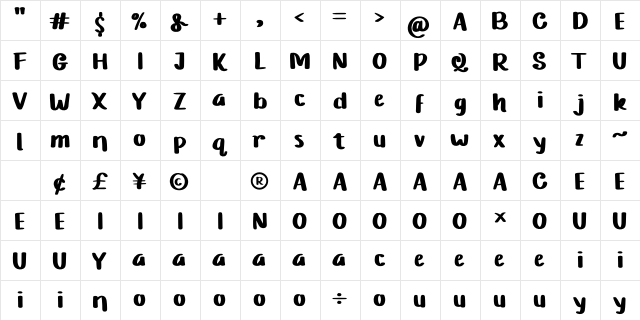
Arcade Demo Bold
Design Context for Arcade Demo Typeface
Arcade Demo is a composed and adaptable typeface that performs quietly and consistently across a wide range of design contexts. The heavy weight commands attention and anchors typographic hierarchies.